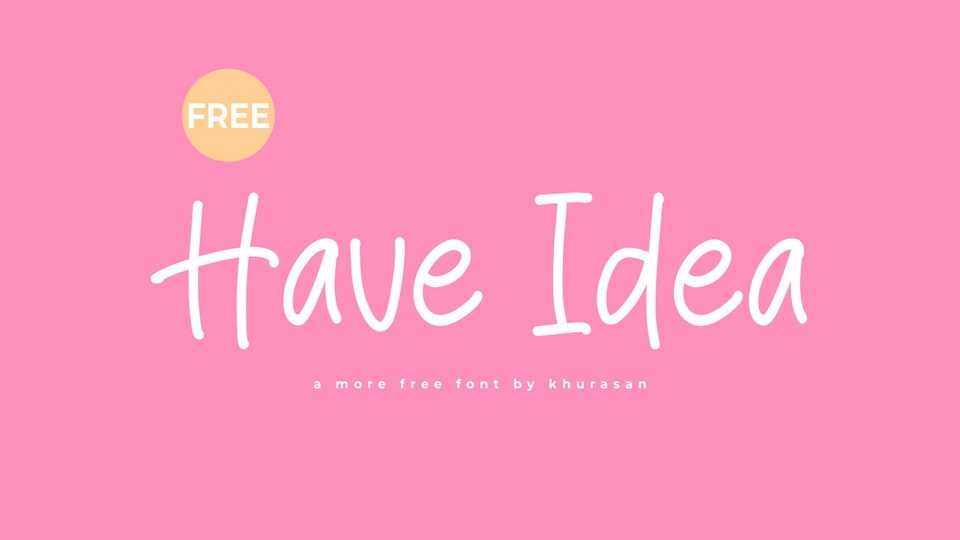
Download Have Idea font, a simple and casual hand-drawn typeface that effortlessly infuses a laid-back vibe into your designs. Have Idea font is an ideal choice for projects seeking a friendly aesthetic, from casual branding to easy-to-read headlines.